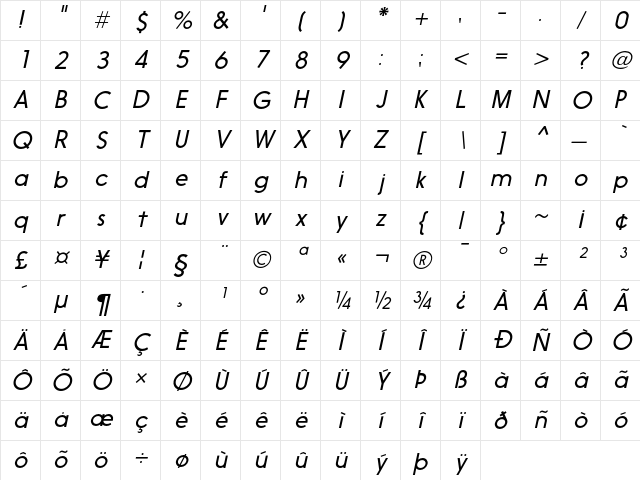
Complete Nanami Light Oblique glyph index. Displaying only characters natively supported by Nanami Light Oblique font.
Nanami is a composed and adaptable typeface that performs quietly and consistently across a wide range of design contexts. The slanted form adds forward momentum and visual energy. Its slender proportions lend an understated elegance to any composition.
Pro Tip: Use Nanami for emphasis, pull quotes, and subheadings where its slanted energy can add rhythm to the layout.